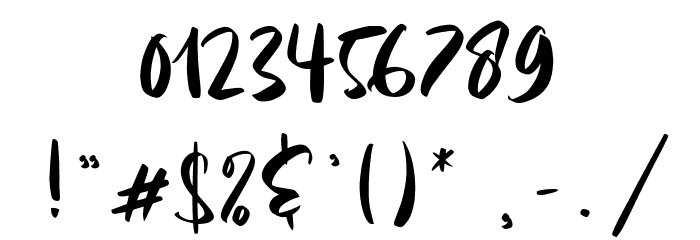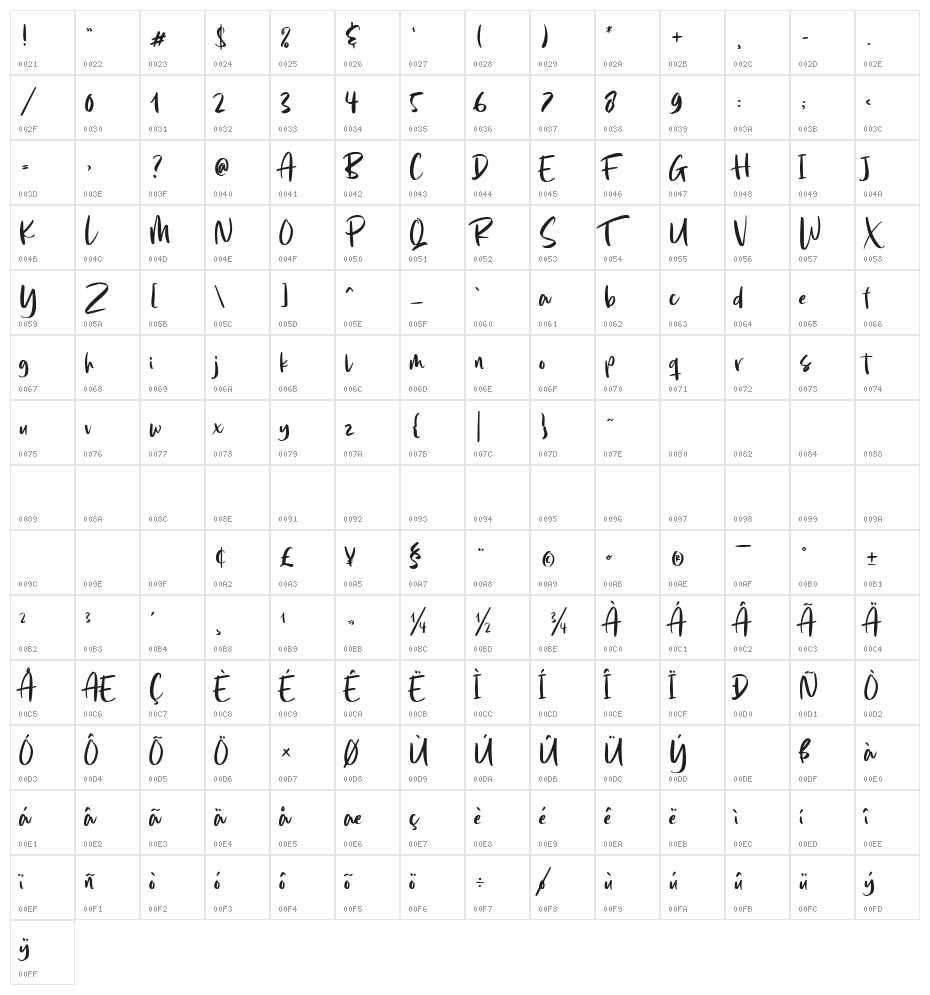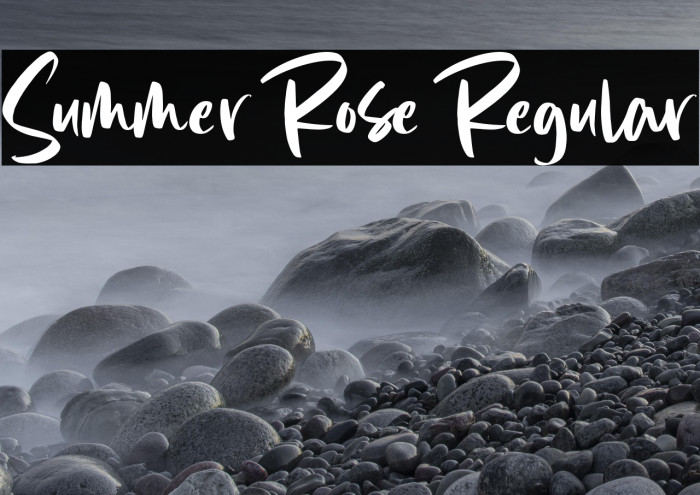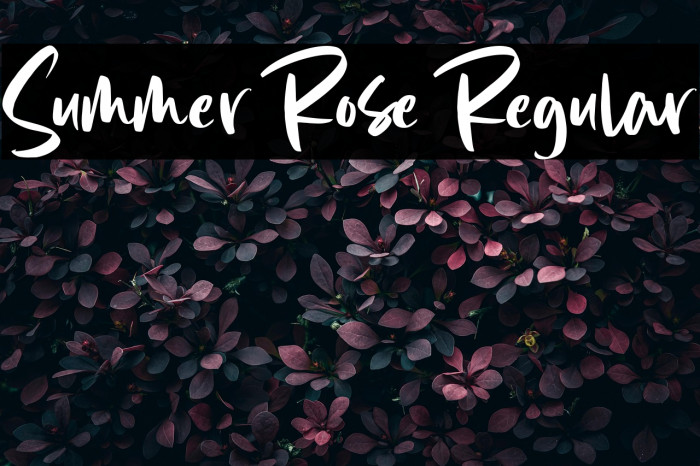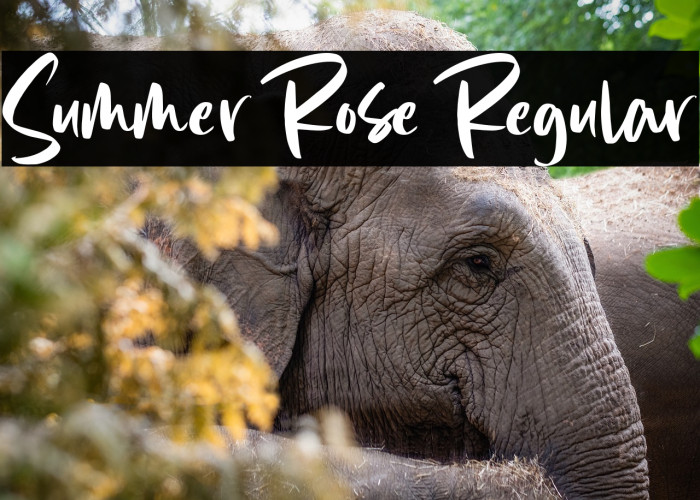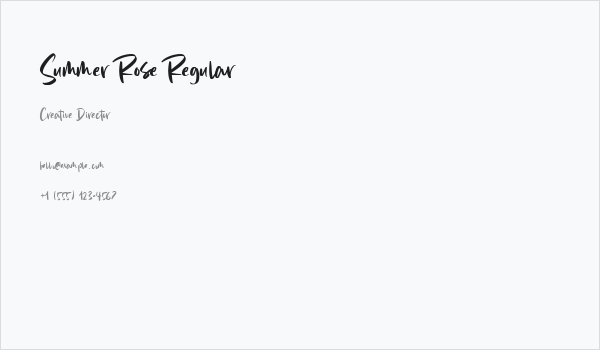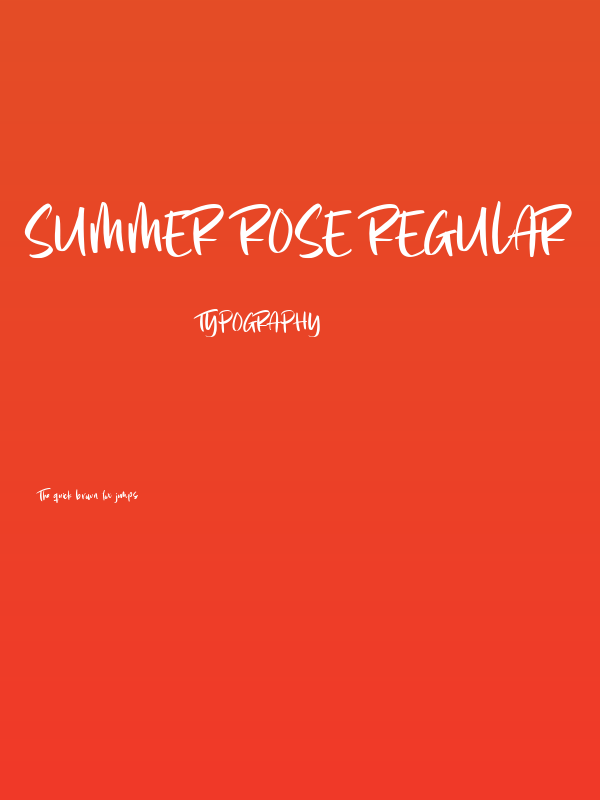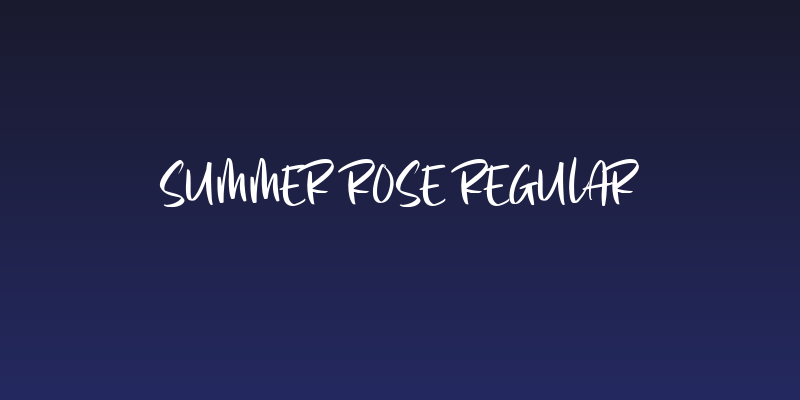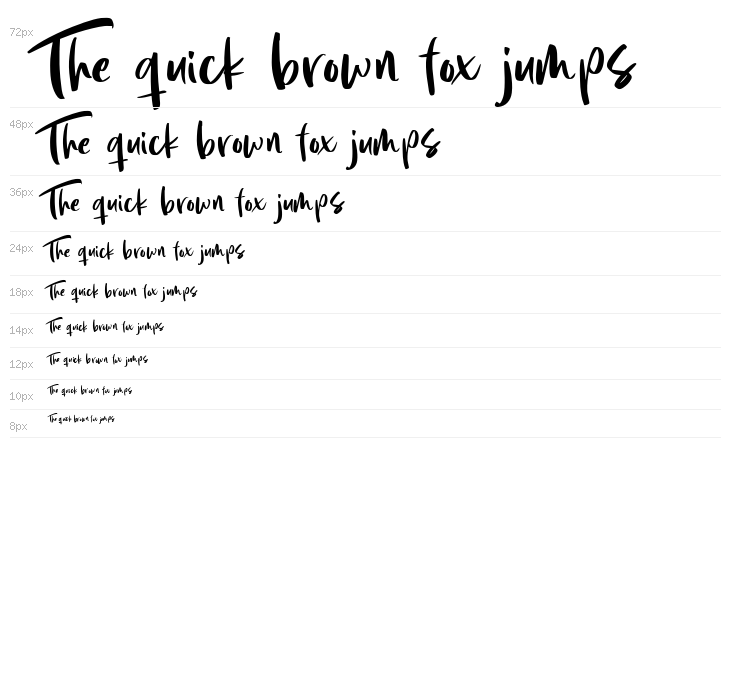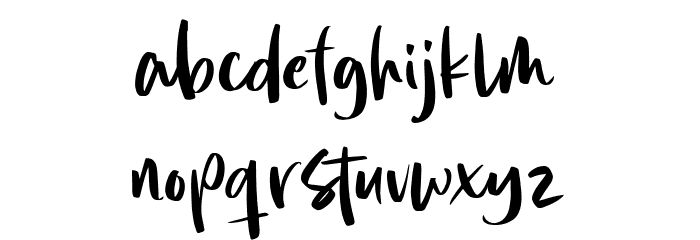
Summer Rose Regular Font
Summer Rose Regular Description
This font exhibits a lively and expressive handwritten style, characterized by its bold and fluid strokes. The letters are slightly slanted, giving a dynamic and energetic feel. The uppercase letters are tall and commanding, while the lowercase letters maintain a consistent flow, enhancing readability. The numbers are equally bold, matching the overall aesthetic. Special characters are creatively integrated, maintaining the playful yet sophisticated vibe. This font's unique style makes it suitable for projects that require a personal touch or a creative flair.